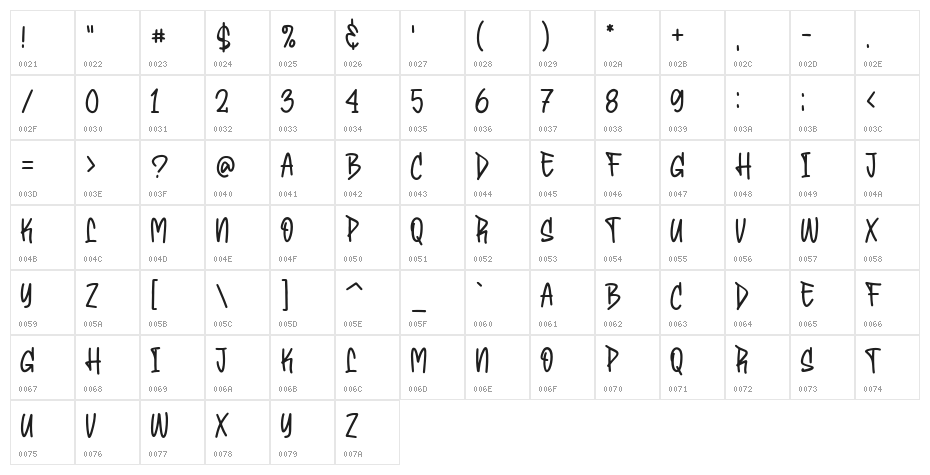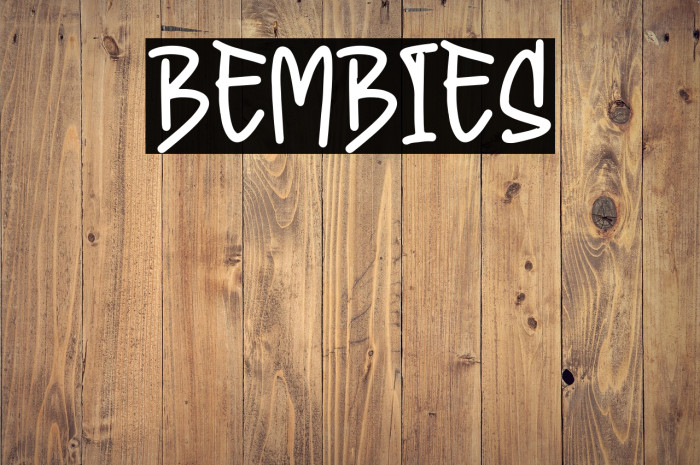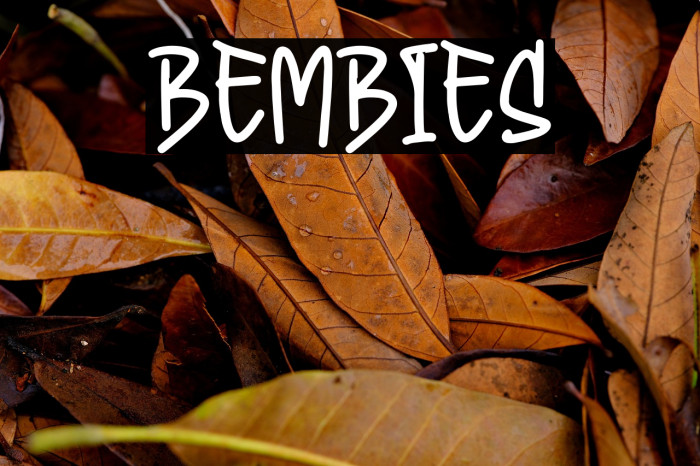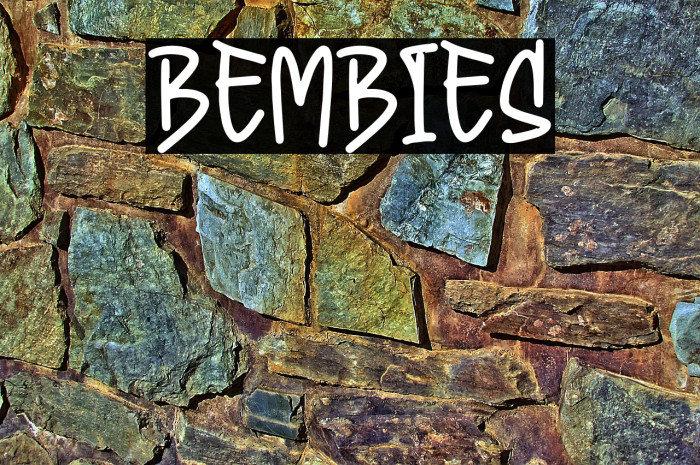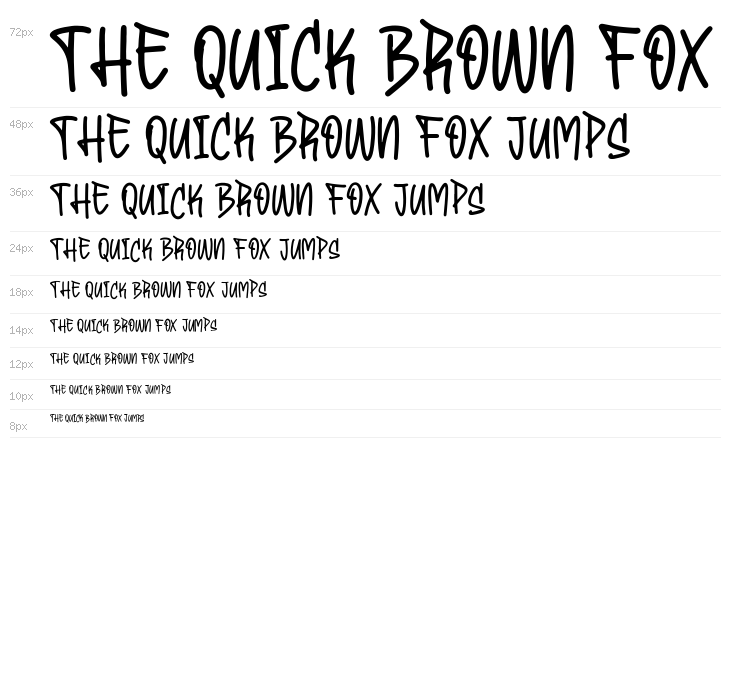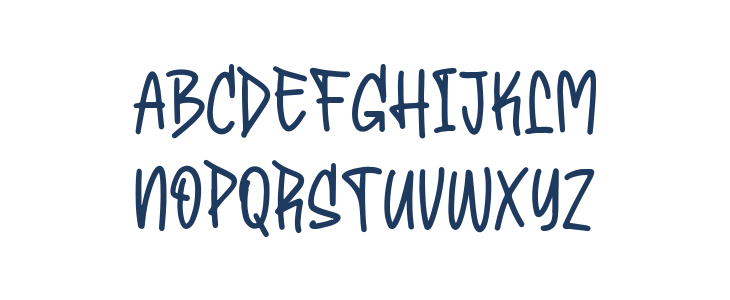
Bembies Font
Bembies Description
This font features a playful and energetic handwritten style, characterized by its bold and slightly irregular strokes. The uppercase and lowercase letters maintain a consistent flow, with a casual and informal appearance. The numbers and special characters complement the alphabet with the same lively aesthetic. The font's design is reminiscent of a personal touch, making it ideal for projects that require a friendly and approachable feel. Its unique style stands out, making it suitable for creative and artistic applications.
| Use Case | Logos, Headlines, Posters |
| Proposed Projects | Ideal for greeting cards, children's books, playful branding, and social media graphics. |